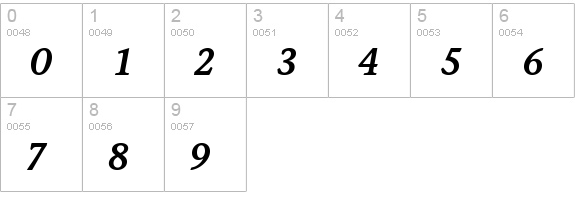
StoneInforEF-SemiBoldItalic Font Details
StoneInforEF-SemiBoldItalic font is a stylish and modern typeface that exudes sophistication and elegance. Its semi-bold and italic design adds a touch of flair to any project, making it perfect for headings, titles, and other prominent text. The sleek lines and unique curves of this font make it stand out from the crowd, while still maintaining a professional and polished look. One of the best things about StoneInforEF-SemiBoldItalic font is that it is available for free download at FontsMarket.com. This means that you can easily access this high-quality font without having to spend a penny. Whether you are a designer looking to add a new font to your collection or a business owner in need of a fresh look for your branding, StoneInforEF-SemiBoldItalic font is a fantastic choice that won't break the bank. Don't miss out on the opportunity to enhance your projects with the unique and eye-catching StoneInforEF-SemiBoldItalic font. Download it for free today and take your designs to the next level!